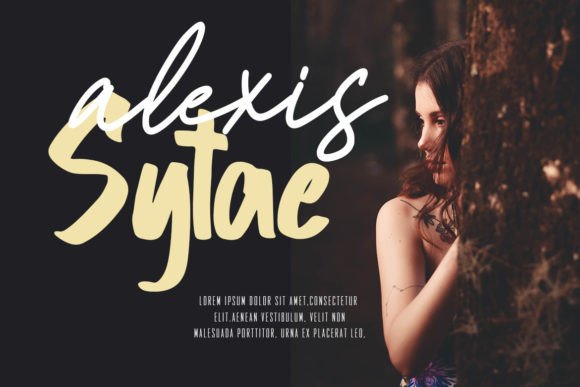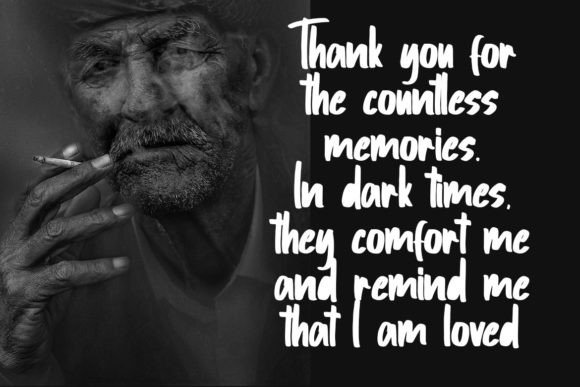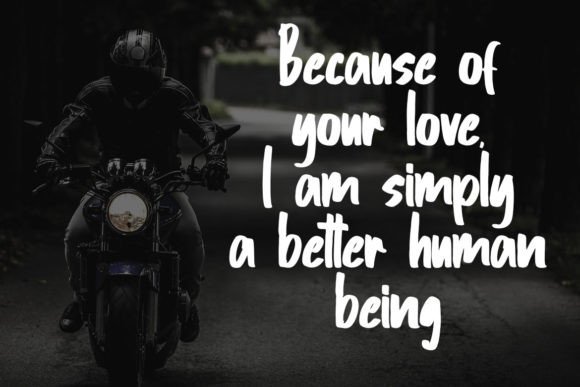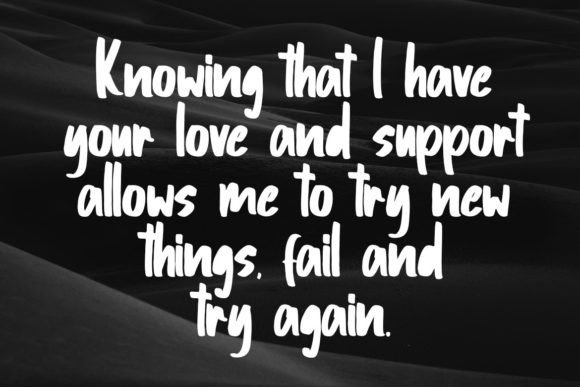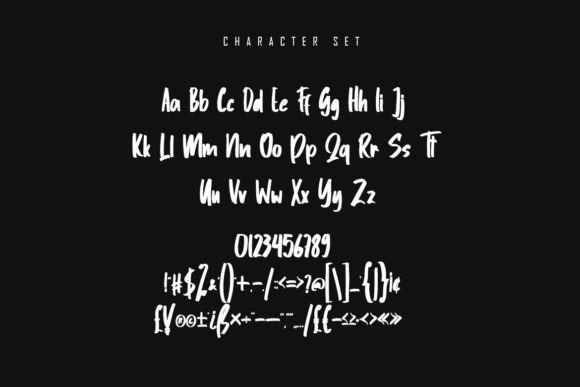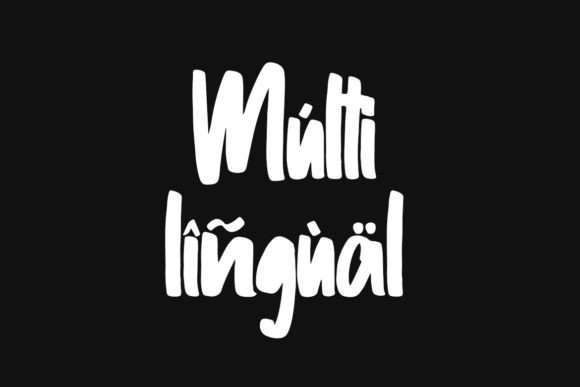
Introduction to Qalbite Font
As a designer, there’s nothing quite like the thrill of bringing a creative project to life. You’ve spent hours pouring over concepts, refining your vision, and experimenting with different design elements – and then, it happens: the perfect font appears, elevating your entire design to new heights. For many, that font is the Qalbite Font, a stunning, handwritten script that adds a touch of elegance and sophistication to any design.
But what makes Qalbite Font so special? Is it the way its bold, yet refined lines seem to dance across the page? Or perhaps it’s the font’s incredible versatility, making it a perfect fit for a wide range of design projects, from wedding invitations to social media graphics?
Key Features of Qalbite Font
- The Qalbite Font is a high-quality design resource suitable for various creative projects.
- This font features a transparent background, making it ideal for use on various backgrounds and designs.
- With a large character set and support for multiple languages, the Qalbite Font is a versatile addition to any design project.
- Its unique, modern design makes the Qalbite Font a standout choice for designers looking to add a touch of creativity to their projects.
Honest Review: Qalbite Font
As a designer, I’m always on the lookout for high-quality design resources to elevate my creative projects. Recently, I stumbled upon the Qalbite Font, and I’m excited to share my honest review with you.
Here are some things that work well with the Qalbite Font:
- ✨ High-quality font design with clean lines and a modern feel
- ✨ Large character set with a wide range of languages supported
- ✨ Transparent background option, ideal for creating custom backgrounds and overlays
- ⚠️ Limited font weights and styles, which may not be suitable for every project
- ⚠️ Some users may find the font too modern or trendy, depending on their design aesthetic
Overall, I’m impressed with the Qalbite Font’s design and features. While it may not be perfect for every project, it’s an excellent resource for designers looking for a high-quality, modern font. With its free download option and transparent background feature, it’s definitely worth considering for your next creative project.
The Qalbite Font is a high-quality design resource that can elevate your creative project with its unique and stylish appearance. You can download it for free, making it an excellent addition to your design library.
Tips for Getting the Most Out of Qalbite Font
To get the most out of the Qalbite Font, consider the following tips:
- Use it with a transparent background to create a modern and sleek design.
- Experiment with different font sizes and colors to add emphasis and visual interest.
- Combine the Qalbite Font with other design elements to create a unique and eye-catching design.
The Qalbite Font is ideal for a variety of design projects, including:
- Branding